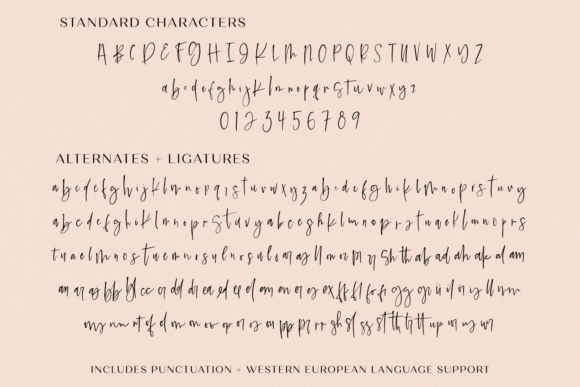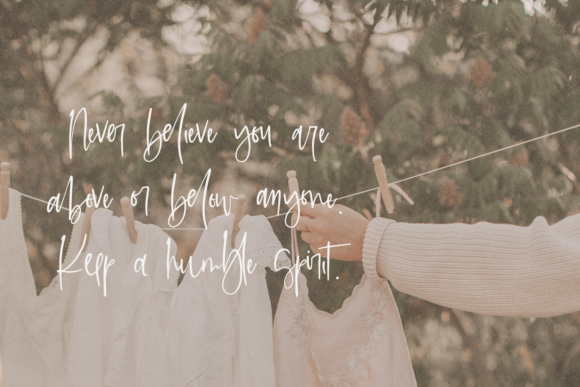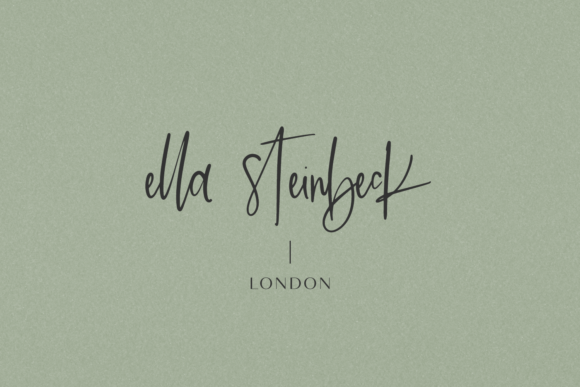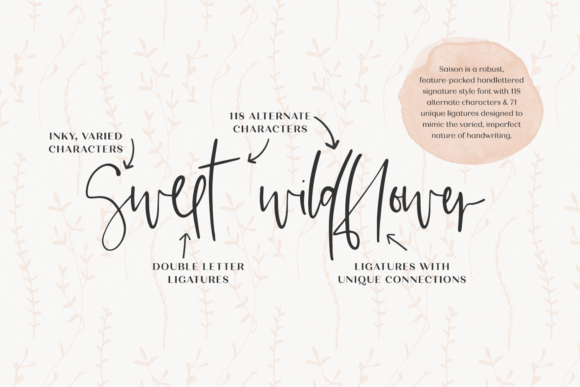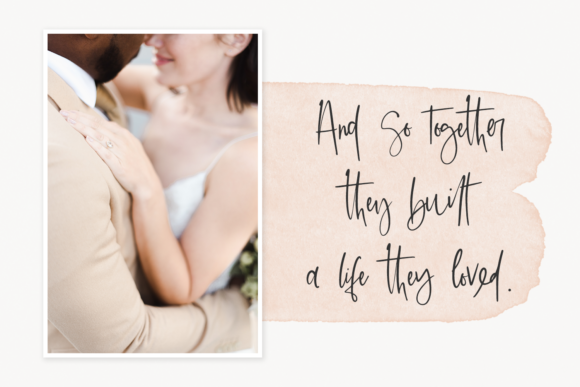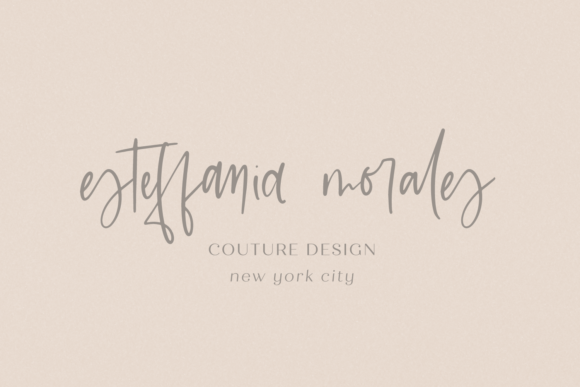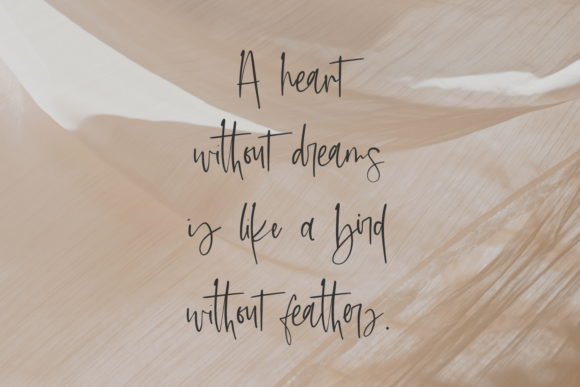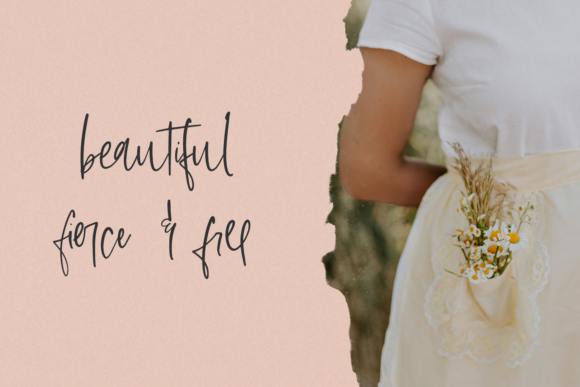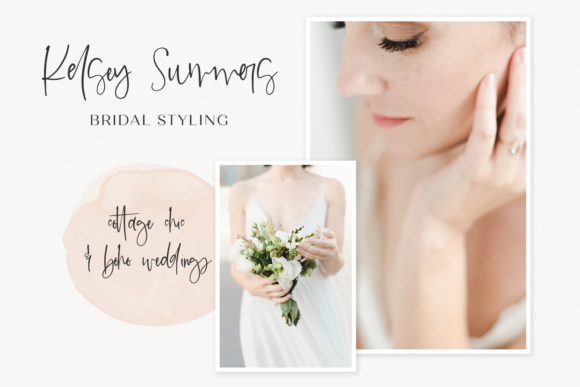
Saison Font
About Saison Font
Saison is a charming and relaxed handwritten font. Every letter has a unique and beautiful touch, which will make your design come alive! It looks incredibly original and beautiful and it will elevate each of your designs.